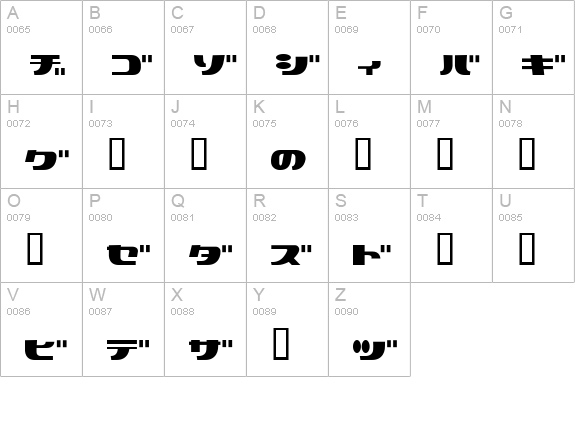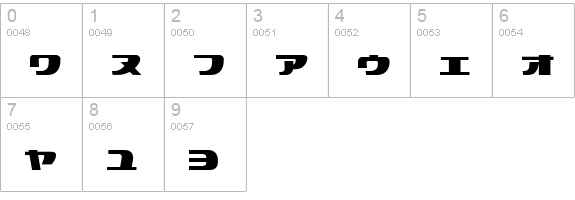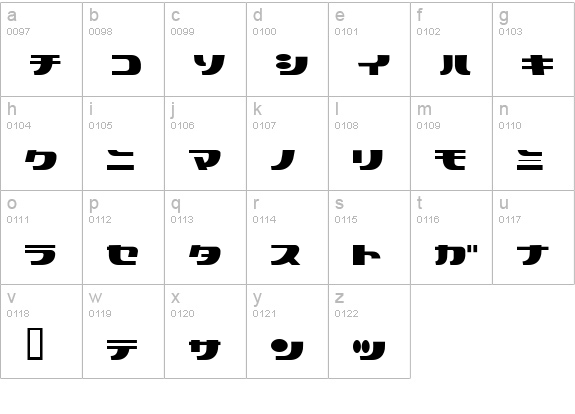
Introducing the delightful Happy Frame font, a whimsical and playful typeface that will surely bring a smile to your face! With its charming and cheerful design, this font is perfect for adding a touch of joy to any project. Happy Frame font is carefully crafted with attention to detail, featuring delightful rounded edges and a unique frame-like appearance. Its playful and friendly characters will instantly brighten up your designs, making them truly stand out from the crowd. One of the best things about Happy Frame font is that it is completely free! That's right, you can freely download this font and use it in your personal and commercial projects without any restrictions. It's the perfect opportunity to bring a little happiness to your designs without breaking the bank. To get your hands on the Happy Frame font, simply head over to FontsMarket.com, where you can easily download it with just a few clicks. Whether you're working on a fun-filled poster, a cheerful greeting card, or a captivating logo, this font will surely be your go-to choice. So why wait? Spread happiness and positivity in your designs with the delightful Happy Frame font. Download it for free at FontsMarket.com and let your creativity shine!